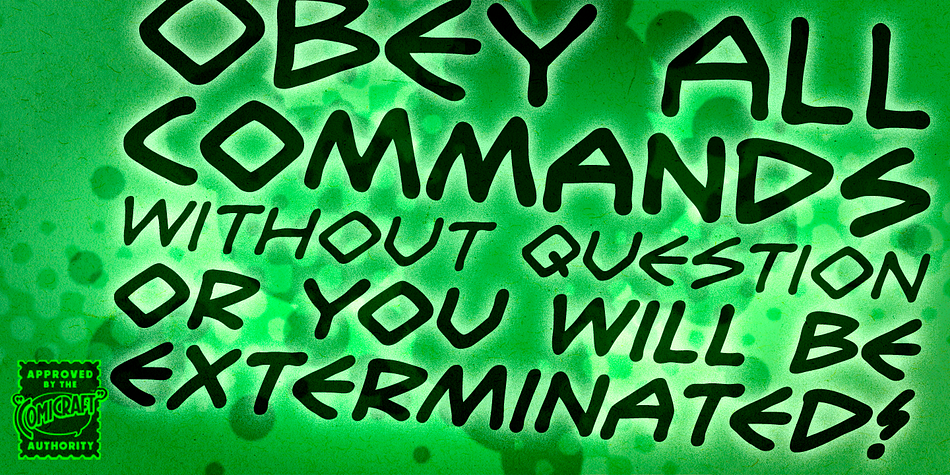
Designed by Richard Starkings and John Roshell, Obey Obey Obey is a comic and hand display font family. This typeface has four styles and was published by Comicraft.
YOU WILL OBEY ALL OUR COMMANDS! YOU WILL OBEY INSTANTLY! YOU WILL OBEY WITHOUT QUESTION! OBEY! OBEY! YOU WILL BUY THIS FONT OR YOU WILL BE EXTERMINATED!
Four fonts (Regular, Italic, Bold & Bold Italic) with alternate uppercase characters.